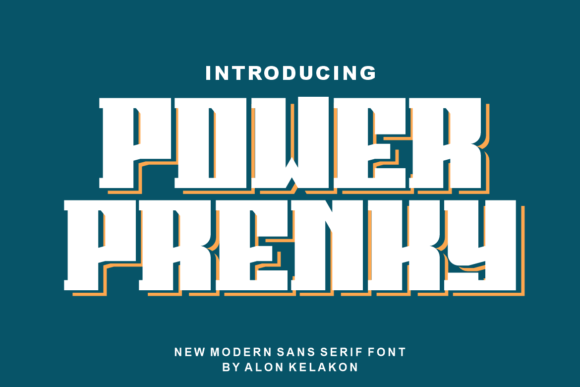
Power Prenky Font: Elevating Editorial Layouts
There is a specific moment in every editorial design project when the layout feels functional but lacks a soul. I experienced this recently while redesigning a seasonal lifestyle guide for a digital publication. The content was rich, the photography was warm, and the grid was structured, yet the headlines felt disconnected from the narrative voice. It was during this search for visual cohesion that I introduced Power Prenky into the workflow. As a display font, it did not merely fill space; it redefined the emotional temperature of the entire piece.
Choosing a typeface for editorial work is rarely about finding the loudest option. It is about discovering a letterform that respects the reader’s time while inviting them to linger. Power Prenky strikes this delicate balance with a cool, modern aesthetic that feels both curated and accessible. In my testing across various content formats, from newsletter headers to printable worksheets, this font has proven to be an incredible asset for creators who value typography as a storytelling device rather than just a utility.
Defining the Visual Character
Power Prenky distinguishes itself through a rhythm that feels intentional without being rigid. Many modern display fonts lean heavily into either extreme minimalism or chaotic distortion, but this typeface occupies a refined middle ground. The letterforms possess a confident weight that commands attention on a magazine cover or blog header, yet the curves retain enough softness to prevent the design from feeling aggressive.
When I applied it to a recipe ebook project, the font’s personality immediately elevated the perceived value of the content. Food publishing requires a typeface that evokes appetite and comfort alongside instruction. Power Prenky provided a contemporary frame for traditional culinary content, signaling to the reader that the recipes were tested, modern, and trustworthy. This ability to adapt its mood based on context is what makes it such a versatile tool for independent publishers and digital product creators.
Practical Applications in Content Design
Versatility is the hallmark of any premium font in a designer's library. During my evaluation, I tested Power Prenky across several distinct editorial scenarios to understand where it performs best. It is important to recognize that as a display font, its primary function is to guide the eye and establish hierarchy, not to carry long-form reading.
- Blog Headers and Article Titles: On screen, the font renders crisply even at larger sizes. It creates a strong anchor point for SEO-driven titles without overwhelming the featured image or introductory text.
- Digital Magazine Covers: The character spacing and weight distribution allow for tight kerning in mastheads while remaining legible when scaled down for social media thumbnails.
- Printable Guides and Workbooks: For coaching materials and planners, Power Prenky adds a layer of professional polish. It transforms a simple PDF worksheet into a branded experience that feels worth paying for.
- Newsletter Graphics: Email clients can be notoriously inconsistent with rendering. Testing confirmed that Power Prenky maintains its integrity in embedded images and promotional banners, ensuring brand consistency across platforms.
In each of these cases, the font served as a visual cue. It told the reader, "This is important," or "This is where the story begins." For creators selling digital downloads or building course materials, this subtle signaling is essential for maintaining engagement and reducing bounce rates.
Mastering Font Pairing and Hierarchy
A display font never exists in isolation. Its success depends entirely on how it interacts with supporting typefaces. When designing a wedding guide layout, I paired Power Prenky with a clean, neutral sans serif font for captions and navigation elements. The contrast between the expressive headline font and the utilitarian body text created a sophisticated tension that guided the reader effortlessly through the content.
For more traditional editorial layouts, such as feature articles or literary essays, pairing Power Prenky with a readable serif font for body copy proved equally effective. The serif grounded the page in classic publishing conventions, while the display font injected necessary modernity. This approach prevents the design from feeling dated while ensuring that the reading experience remains comfortable. The key is to let Power Prenky handle the heavy lifting of attraction and emotion, allowing your body text to focus purely on clarity and retention.
Hierarchy also extends to size and whitespace. Because Power Prenky has such a distinct personality, it requires breathing room. Crowding it against margins or other graphic elements diminishes its impact. In my newsletter header designs, increasing the padding around the typeface actually improved click-through rates by making the subject line feel less cluttered and more inviting.
Readability Across Formats and Devices
Beautiful typography must still be functional. A major consideration for any blogger or publisher is how a font translates across different mediums. While Power Prenky is visually striking, I paid close attention to its legibility on mobile screens and in print exports.
On high-resolution displays, the details shine. However, on smaller mobile viewports, it is crucial to adjust sizing and line height. Display fonts often require slightly more leading than body text to prevent letters from feeling cramped. During the lifestyle blog redesign, I found that increasing the line height by 10% for mobile users significantly improved the perceived readability of the headlines.
For print materials like zines or physical planners, ink spread is a factor. Power Prenky’s robust construction holds up well in print, maintaining crisp edges even on uncoated paper stocks. This reliability makes it a safe choice for creators who bridge the gap between digital content and physical products. Always test your specific printer settings, but the font’s inherent structure provides a solid foundation for high-quality reproduction.
Licensing and Technical Considerations
Before integrating any new typeface into a commercial workflow, due diligence regarding licensing and technical specs is non-negotiable. Power Prenky is positioned as a creative font for modern branding, but you must verify the specific license tier for your intended use. If you are creating templates for sale, embedding the font in an app, or using it in a paid newsletter, ensure your license covers these commercial applications.
Technically, check the included file formats. OTF files are generally preferred for print and advanced layout software like InDesign or Affinity Publisher due to their support for OpenType features. TTF files may be necessary for certain web applications or older systems. Additionally, explore the alternate characters and ligatures included in the font family. These small details can transform a standard headline into a custom logotype or unique pull quote, adding significant value to your design assets without requiring additional illustration work.
Multilingual support is another critical factor for global publications. Verify that the character set includes the diacritics and special characters needed for your audience's language. Nothing breaks immersion faster than a beautiful headline that falls back to a system font because of a missing accent mark.
The Role of Typography in Brand Identity
Ultimately, selecting Power Prenky is a decision about brand identity. Typography is the voice of your visual content. A playful script says something entirely different than a stoic geometric sans. Power Prenky speaks with a tone that is assured, contemporary, and welcoming. It suggests a creator who is thoughtful about design but not pretentious.
For bloggers and independent publishers, this consistency builds trust. When readers recognize your typographic style across a blog post, an Instagram graphic, and a downloadable checklist, they develop a sense of familiarity. This recognition is the foundation of community building. By choosing a font that aligns with your editorial values and applying it with intention, you move beyond decoration and into the realm of strategic communication.
In my own projects, the shift to Power Prenky was not just an aesthetic upgrade; it was a clarification of purpose. It allowed the content to breathe and the message to land with greater precision. Whether you are laying out a complex digital magazine or simply refreshing your newsletter template, this typeface offers the flexibility and character needed to create a truly enjoyable reading experience. It reminds us that good design is not about shouting the loudest, but about speaking clearly enough to be heard above the noise.